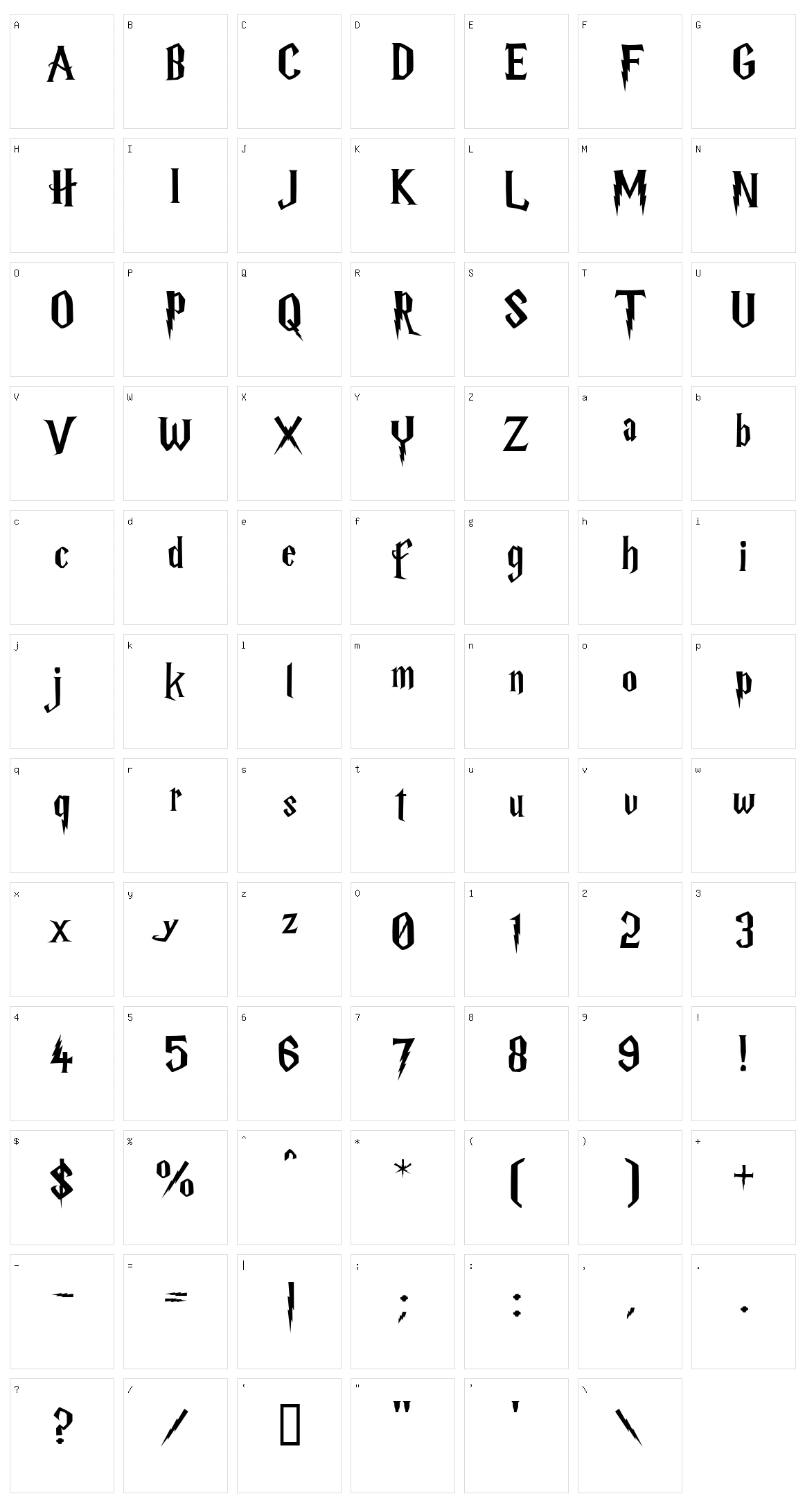
A rather rough interpretation of a font based on
the few letters supplied from a scan of the harry potter
book.
To actually type the words Harry Potter as it appears
on the book cover type the following
H a r Alt0161 y
P o t Alt0164 e Alt0165
Alt0167 will save time by typing the word Potter whole.